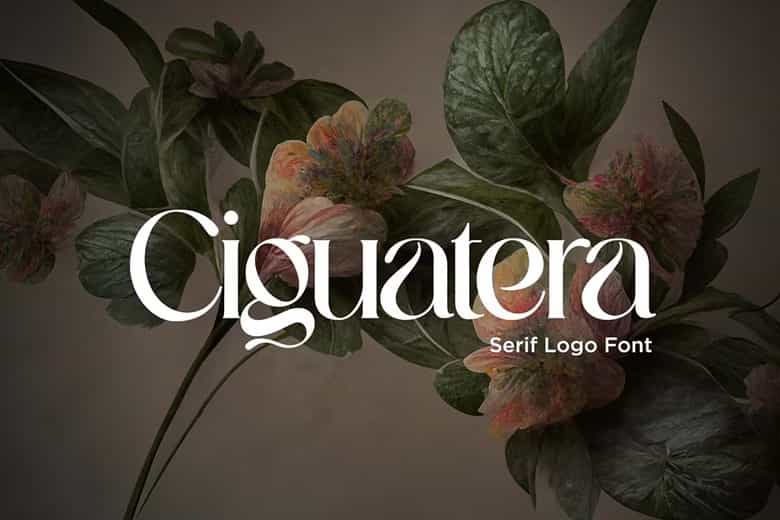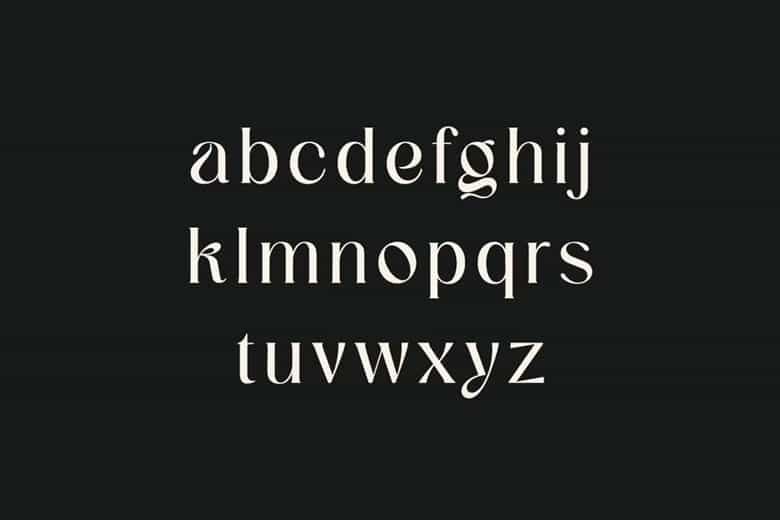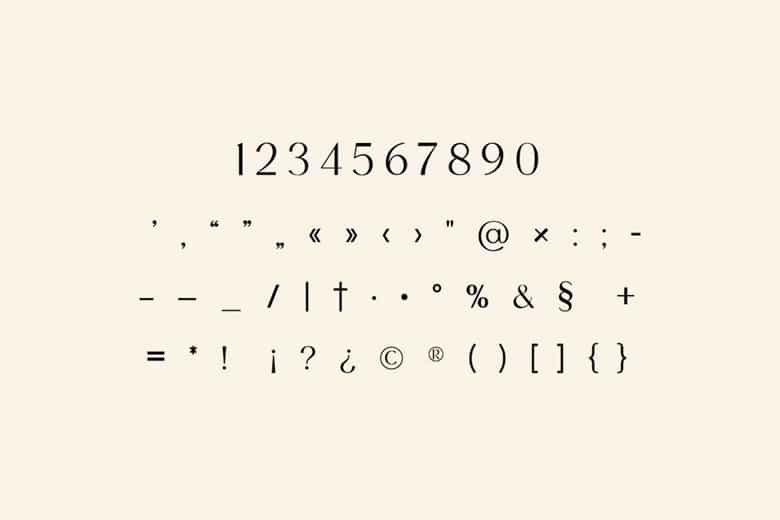
Ciguatera is a modern logo serif font feels beautiful classy, elegant, and stylish. This font is best to use for signature, stationery, logo, wedding, typography quotes, the cover of the magazine or books, website headers, branding and other projects. It also raises an idea about fashion related branding or editorial design that they contain attributes of male an female.